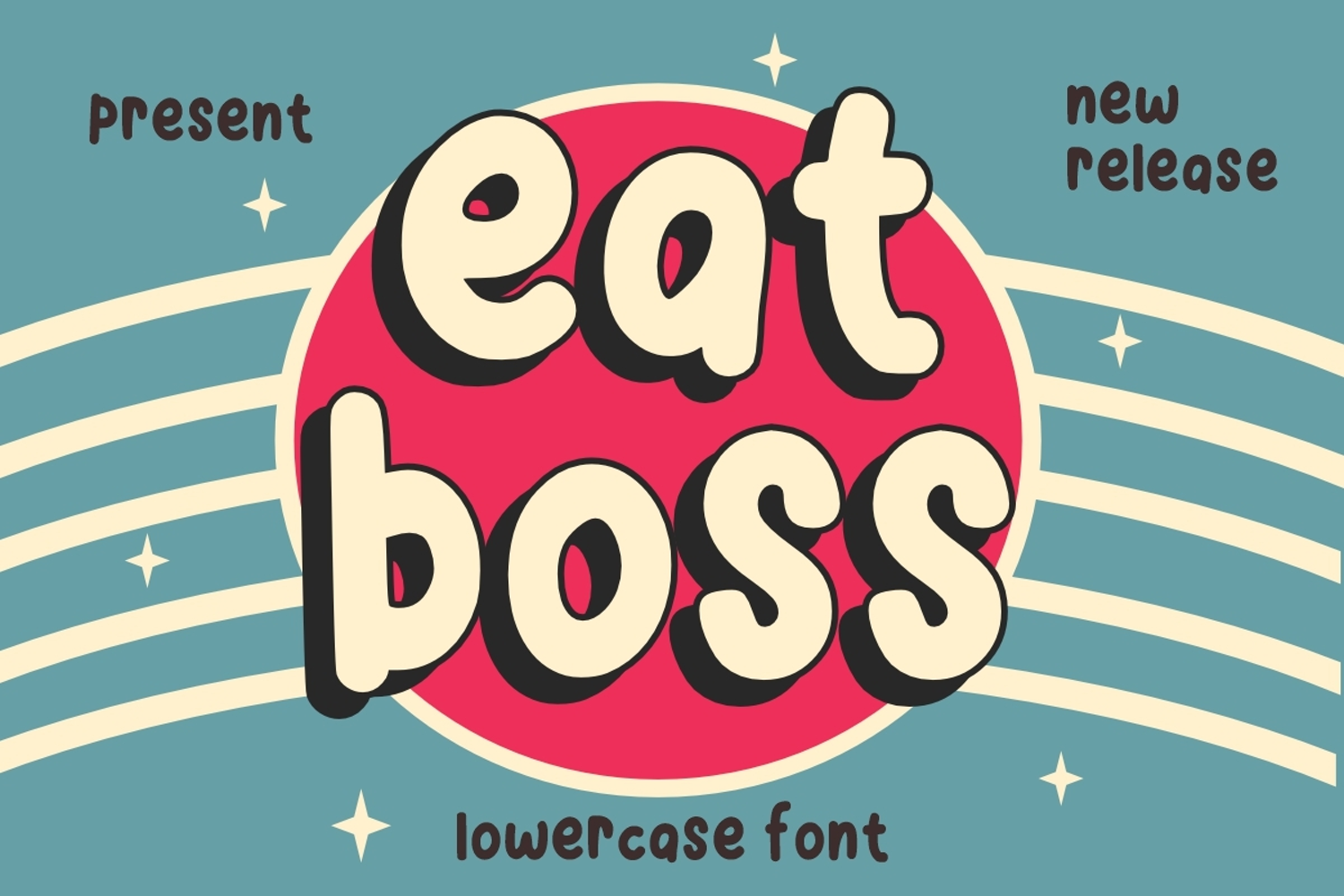
Eat Boss
Eat Boss is a lowercase and cute display font. It is an easy-to-read display font that conveys impeccable friendliness. Whether you’re using it for crafts, cover book, digital design, presentations, or greeting cards, this font has the potential to become your favorite go-to font.